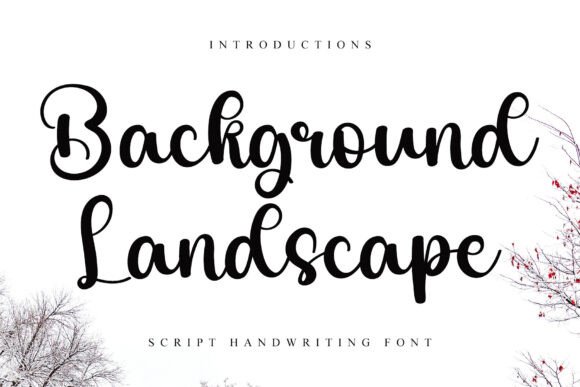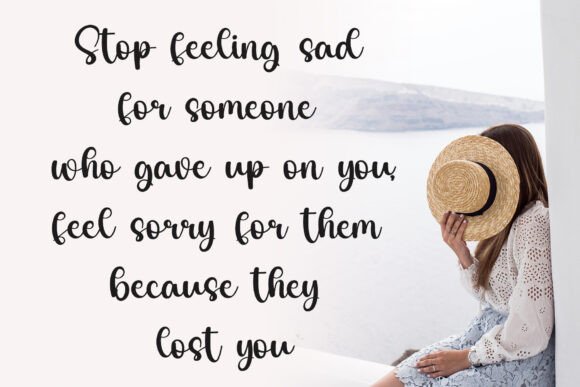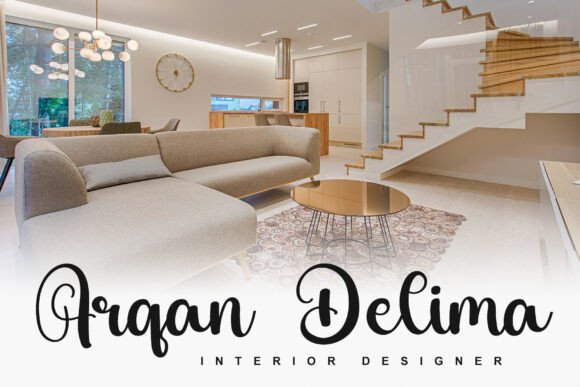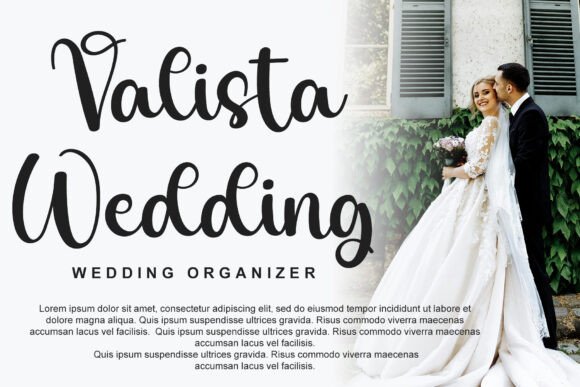
Background Landscape Font
About the Background Landscape Font
Elevate your designs with Background Landscape Font, a font that combines sophistication with readability. Background Landscape is a font that exudes class, combining the beauty of script handwriting with a bold and timeless vintage touch. With its fluid strokes, graceful curves, and dynamic flow, this font is perfect for creating a sophisticated yet powerful impression. Whether you need a stylish signature, branding design, or nostalgic vintage aesthetics, Background Landscape delivers elegance and uniqueness effortlessly.
Background Landscape’s strong vintage aesthetic makes it ideal for projects requiring a touch of nostalgic sophistication. It excels in headlines, logos, short text blocks on packaging, and invitations where its elegant curves and bold strokes command attention. However, its ornate nature makes it unsuitable for body text or UI elements; readability suffers in smaller sizes or extended passages.
Consider pairing it with a clean sans-serif like Open Sans for a balanced contrast, or a geometric sans-serif like Futura for a more modern feel. For a warmer, more traditional pairing, a classic serif font such as Garamond would complement its vintage charm. Avoid pairing it with other highly decorative scripts, as this can lead to visual overload.
The font’s overall personality is sophisticated and bold, yet retains a timeless quality. It is best suited for brands aiming for a luxurious, heritage-inspired, or vintage-modern image—think boutique hotels, artisanal goods, or high-end spirits.